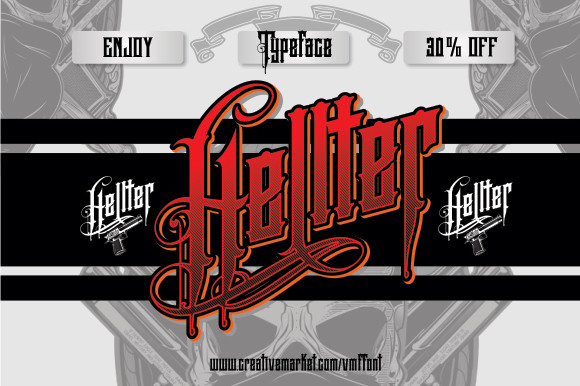
VMF Hellter Font
VMF Hellter Font – This Blackletter font brings a bold, gothic charm to any design, enhanced by powerful OpenType features for seamless stylistic control. Its sharp strokes and dramatic forms evoke a classic medieval spirit while offering modern versatility, making it perfect for logos, posters, branding, and striking display work.Liên hệ thêmCan you include a historical context of Blackletter fonts?How do OpenType features enhance the design process?Could you briefly explain the different OpenType features that can be used with Blackletter fonts?